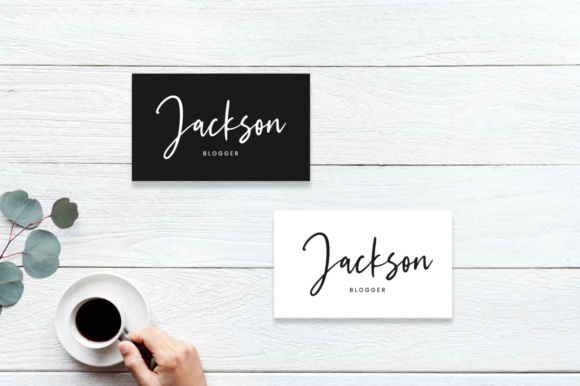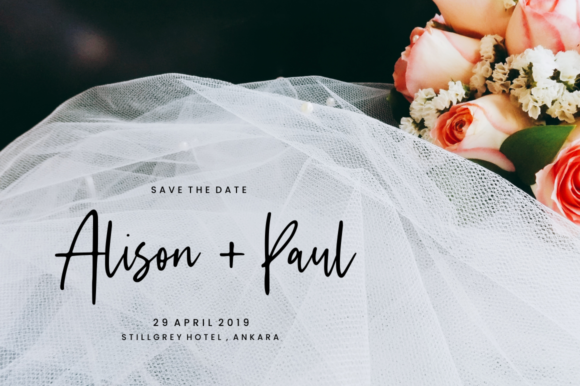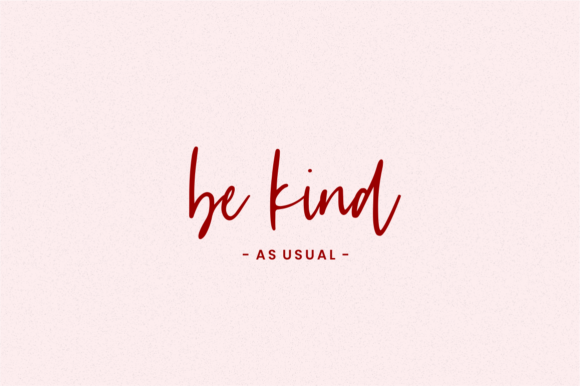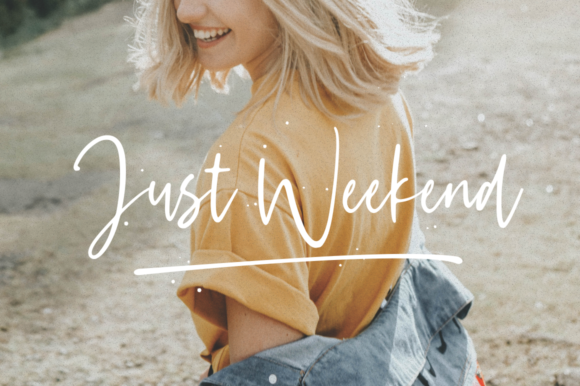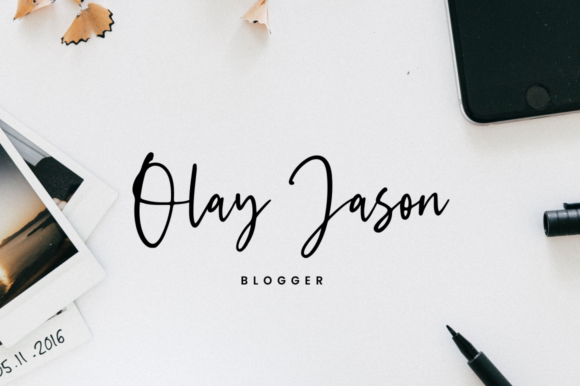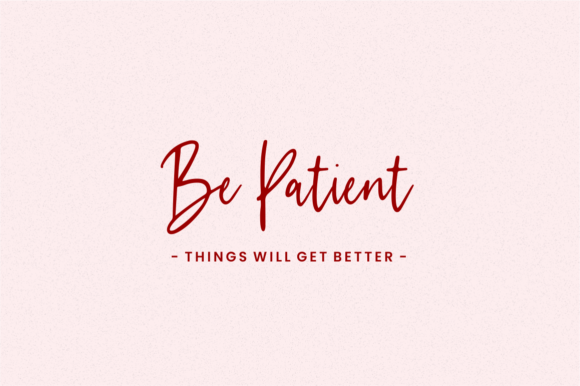
Introducing Handsel Font: The Perfect Blend of Modernity and Authenticity
Are you tired of using the same old fonts in your designs? Look no further than Handsel Font, a fresh and unique handwritten font that is sure to elevate your creative projects. With its undeniably contemporary feel and authentic charm, Handsel Font is the perfect choice for designers and crafters looking to add a personal touch to their work.
What is Handsel Font?
Handsel Font is a modern handwritten font that is designed to bring a touch of personality to your designs. Its unique and fresh style makes it perfect for a wide range of creative projects, from branding and advertising to packaging and digital media. Whether you’re looking to create a bold statement or add a subtle touch of elegance, Handsel Font is the perfect choice.
Key Features of Handsel Font
- Unique and Fresh Style: Handsel Font boasts a unique and fresh style that is sure to make your designs stand out from the crowd.
- Contemporary Feel: With its modern and sleek design, Handsel Font has an undeniably contemporary feel that is perfect for designers and crafters who want to stay ahead of the curve.
- Authentic Charm: Despite its modern style, Handsel Font has an authentic charm that makes it feel approachable and relatable.
- Versatile: Handsel Font is versatile and can be used for a wide range of creative projects, from digital media to print materials.
Why Choose Handsel Font?
So why choose Handsel Font over other fonts on the market? Here are just a few reasons why designers and crafters are falling in love with this amazing font:
- Adds Personality to Your Designs: Handsel Font adds a personal touch to your designs, making them feel more approachable and relatable.
- Perfect for Branding and Advertising: With its unique and fresh style, Handsel Font is perfect for branding and advertising projects where you want to make a bold statement.
- Easy to Read: Despite its handwritten style, Handsel Font is easy to read, making it perfect for body text and other applications where readability is key.
How to Use Handsel Font in Your Designs
Using Handsel Font in your designs is easy. Here are a few tips to get you started:
- Pair it with Other Fonts: Handsel Font pairs perfectly with other fonts, so don’t be afraid to experiment with different combinations.
- Use it for Headings and Titles: Handsel Font is perfect for headings and titles, where its unique and fresh style can really shine.
- Add it to Your Branding: Consider adding Handsel Font to your branding, where its authentic charm and contemporary feel can help to elevate your brand.
In conclusion, Handsel Font is a fresh and unique handwritten font that is sure to bring a touch of personality to your designs. With its undeniably contemporary feel and authentic charm, it’s the perfect choice for designers and crafters looking to stay ahead of the curve. So why wait? Download Handsel Font today and start creating amazing designs that will leave a lasting impression.
Get Inspired by Handsel Font
Still not sure what to create with Handsel Font? Here are a few ideas to get you started:
- Create a Bold Brand Identity: Use Handsel Font to create a bold brand identity that will help you stand out from the competition.
- Design a Beautiful Website: Add Handsel Font to your website design, where its unique and fresh style can really shine.
- Make a Statement with Packaging: Use Handsel Font on your packaging, where its authentic charm and contemporary feel can help to elevate your brand.
Whatever you create, we’re sure that Handsel Font will inspire you to produce something amazing. So what are you waiting for? Get creative with Handsel Font today!